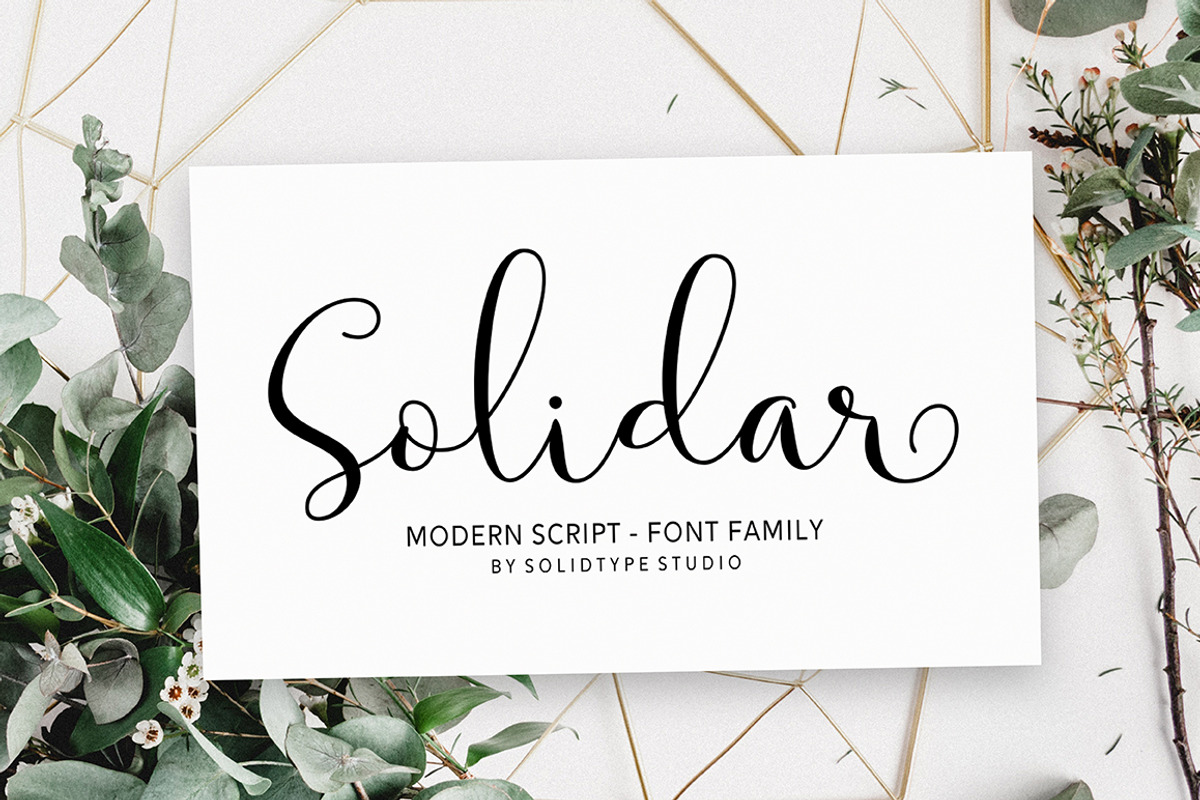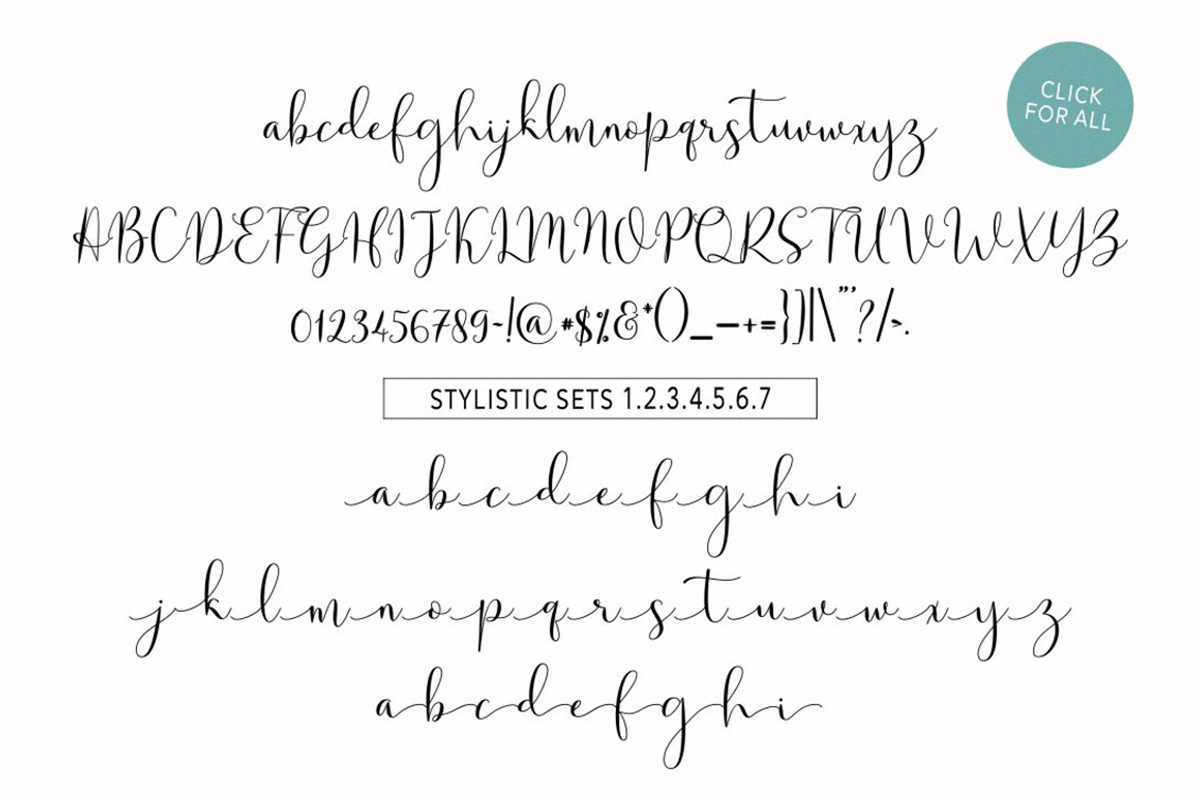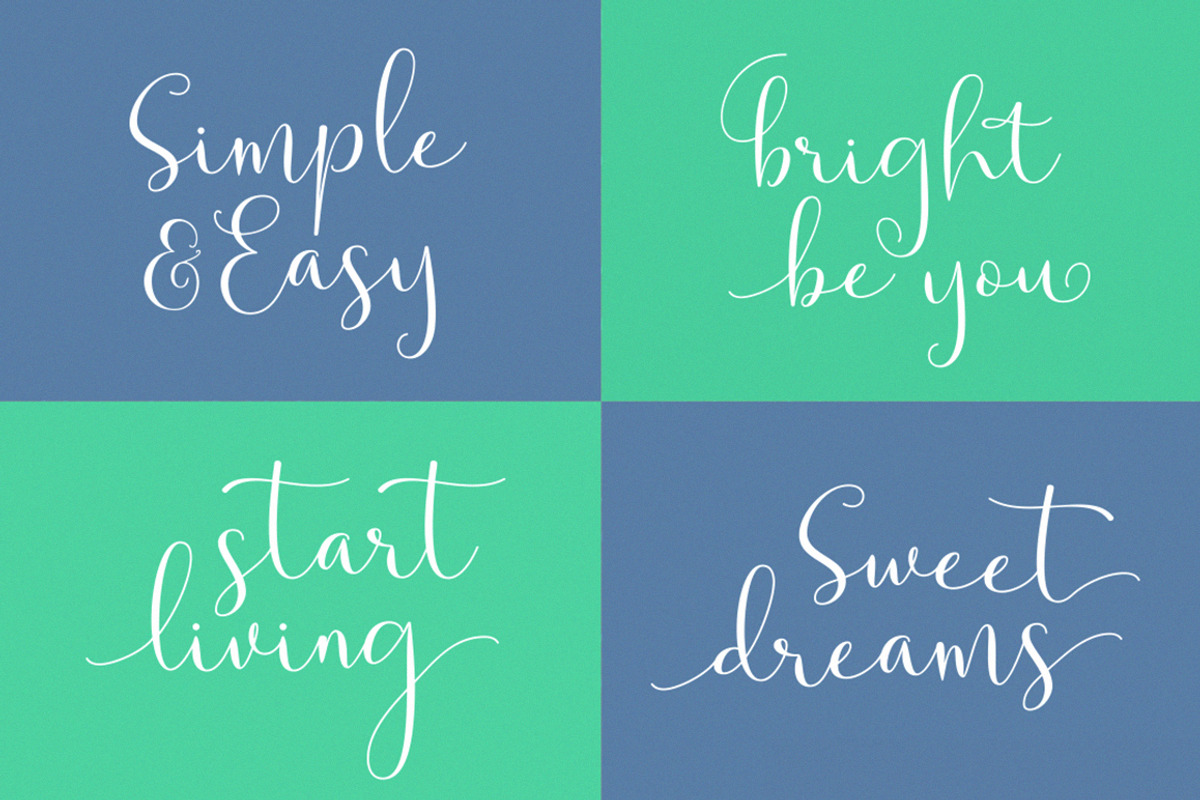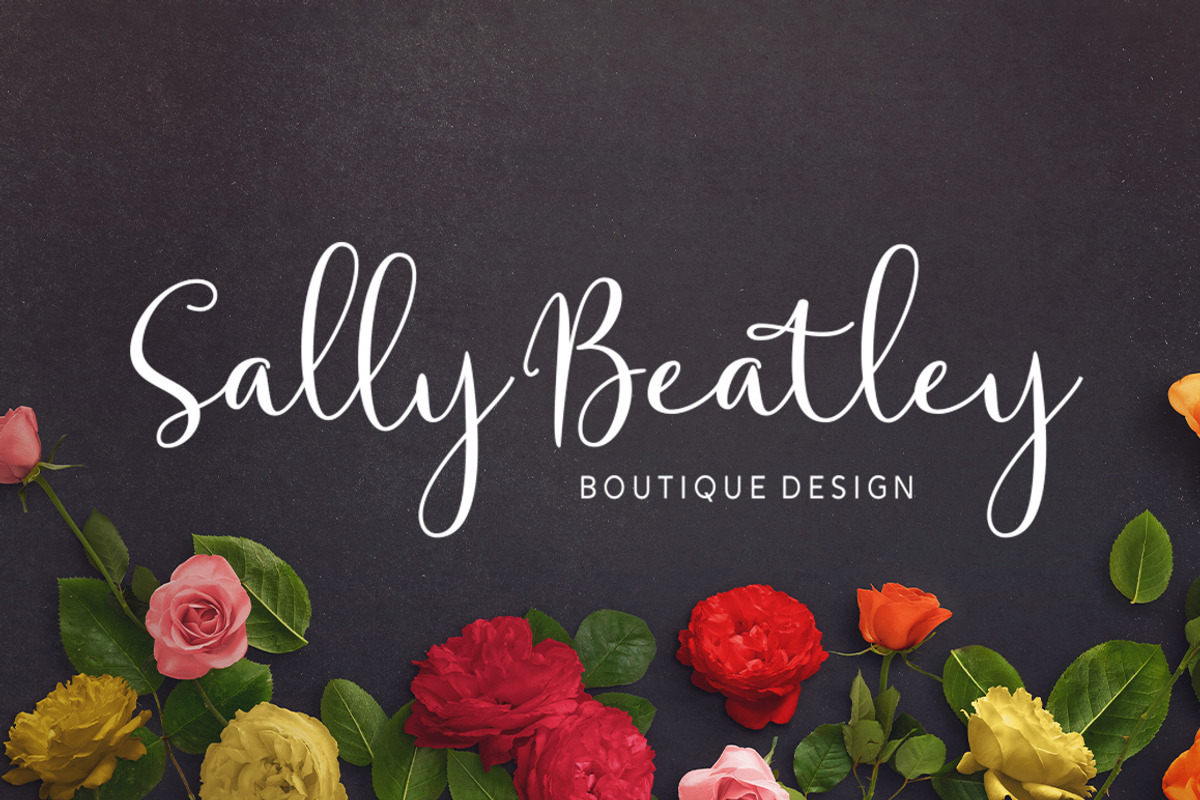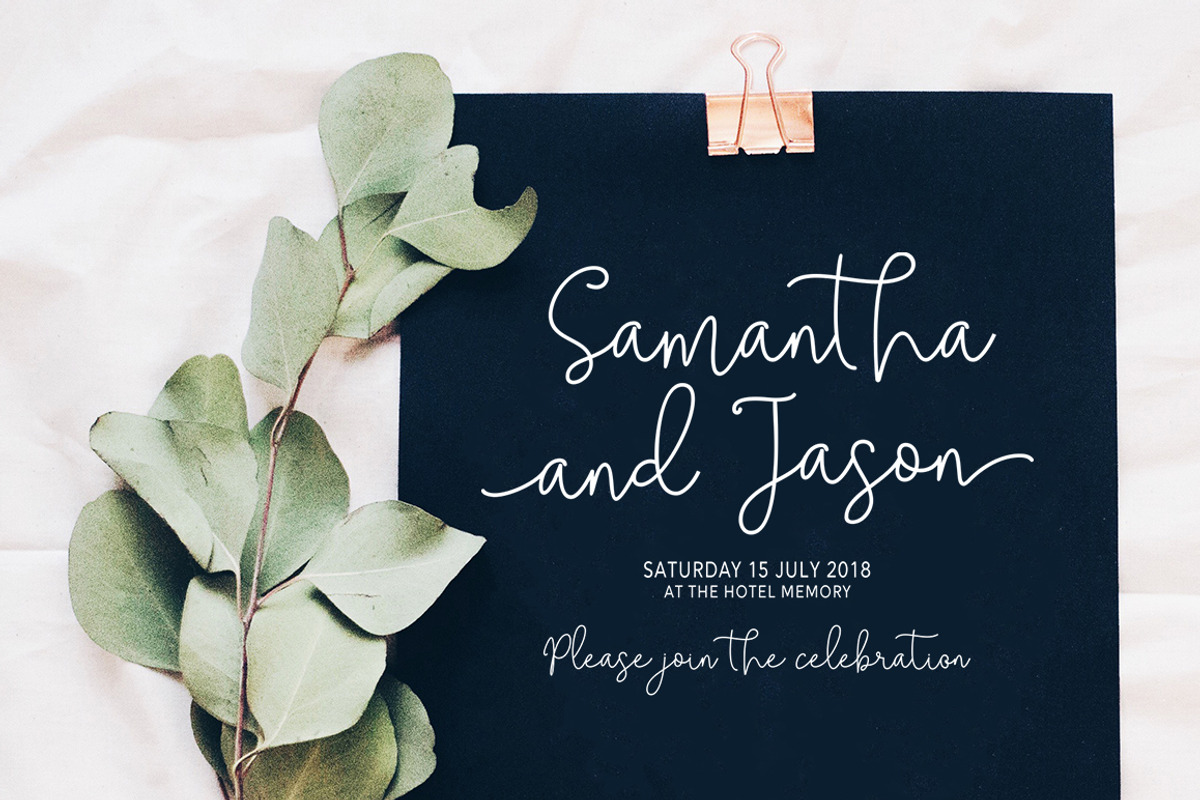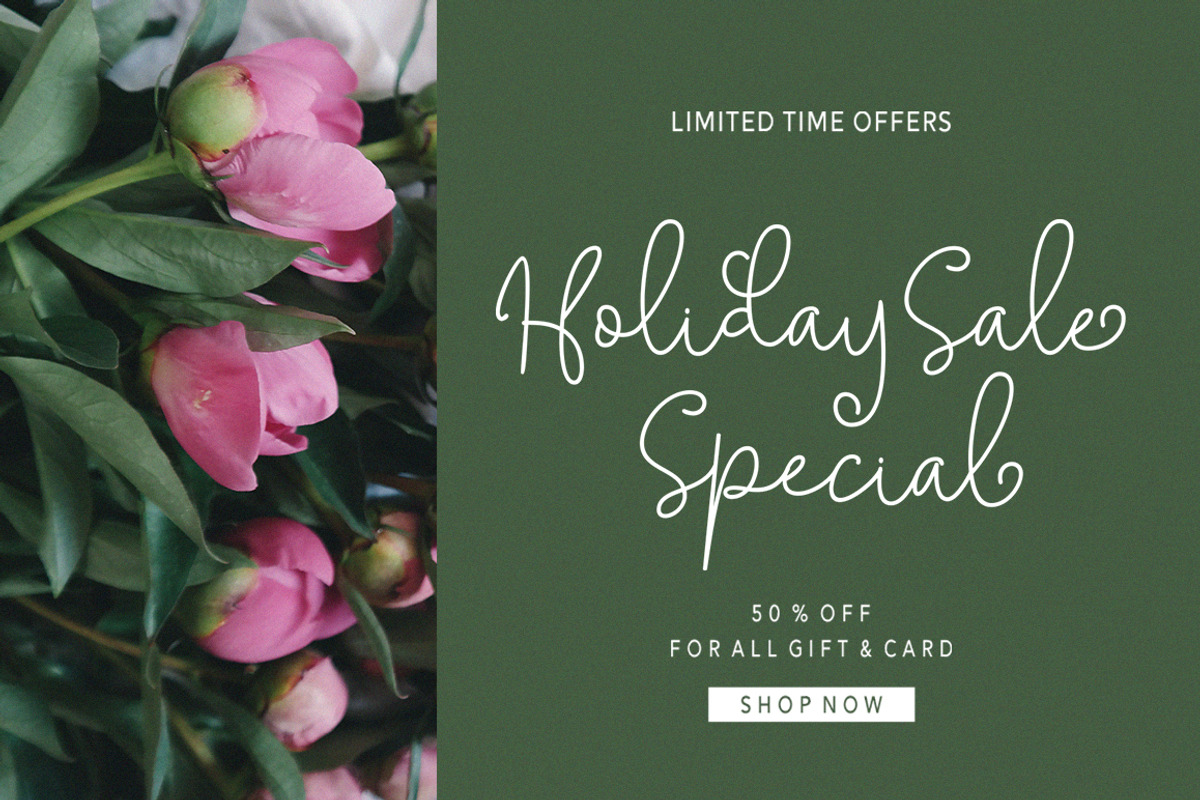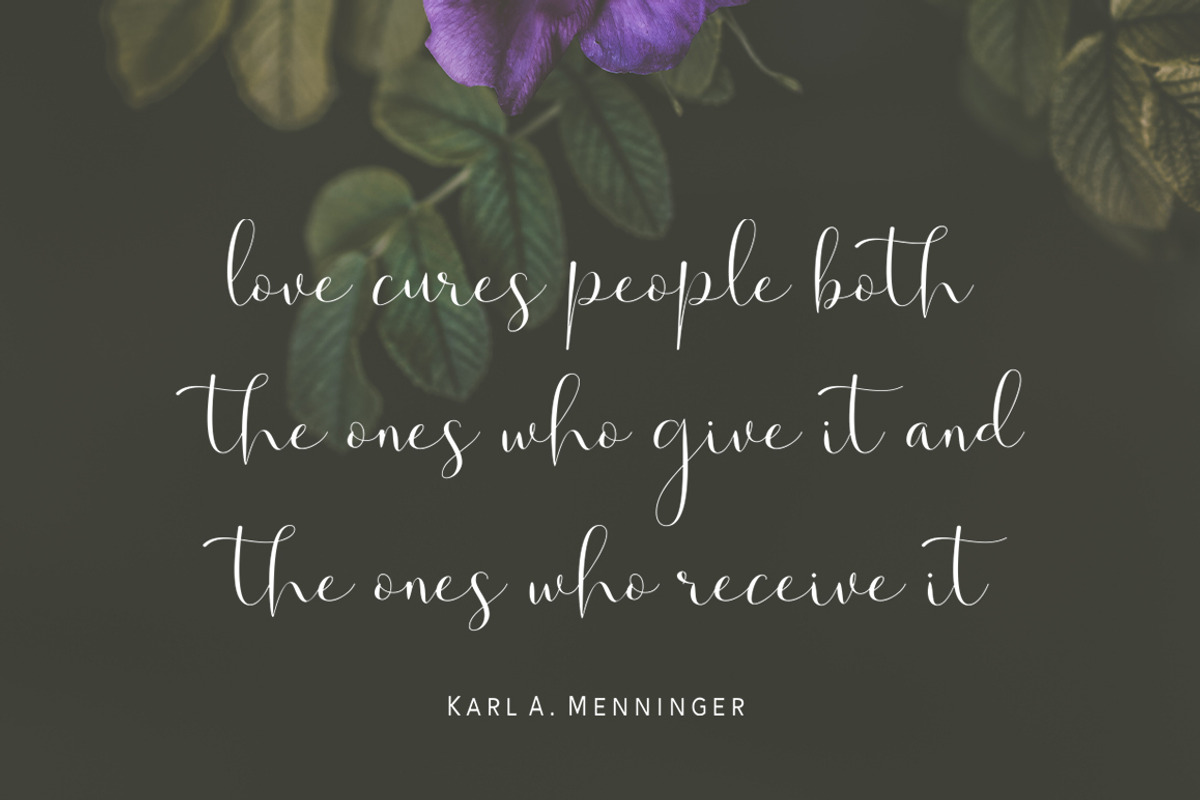
Solidar Font Family
Solidar Script - Font Family
A new modern script font family, with elegant touch, casual and lovely. It comes with a handy set of opentype stylistic, use the beautiful ligatures, alternates and swashes. You need a program that supports OpenType features such as Adobe Illustrator CS, Adobe Photoshop CC, Adobe Indesign, Microsoft Word 2010. It is perfect for logo, greetings, branding, quotes, prints, invitations and crafting. All lowercase letters include alternates, beginning & end swashes, that makes the font look fabulous!
- All lowercase letters include alternates, beginning & end swashes, that makes the font look fabulous!
Why Solidar Font Family is worth a look
Solidar Font Family by Solidtype fits naturally into Branding, posters, packaging, typography.